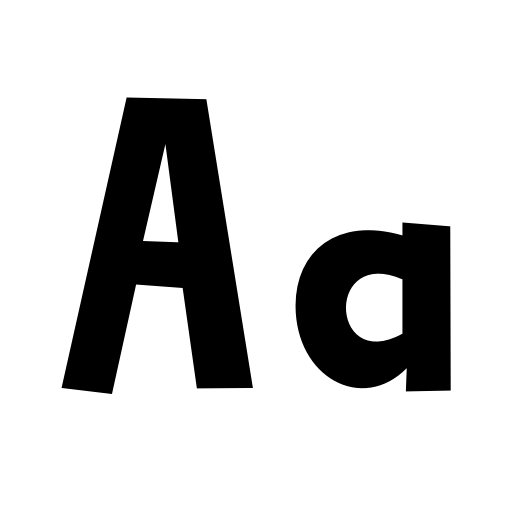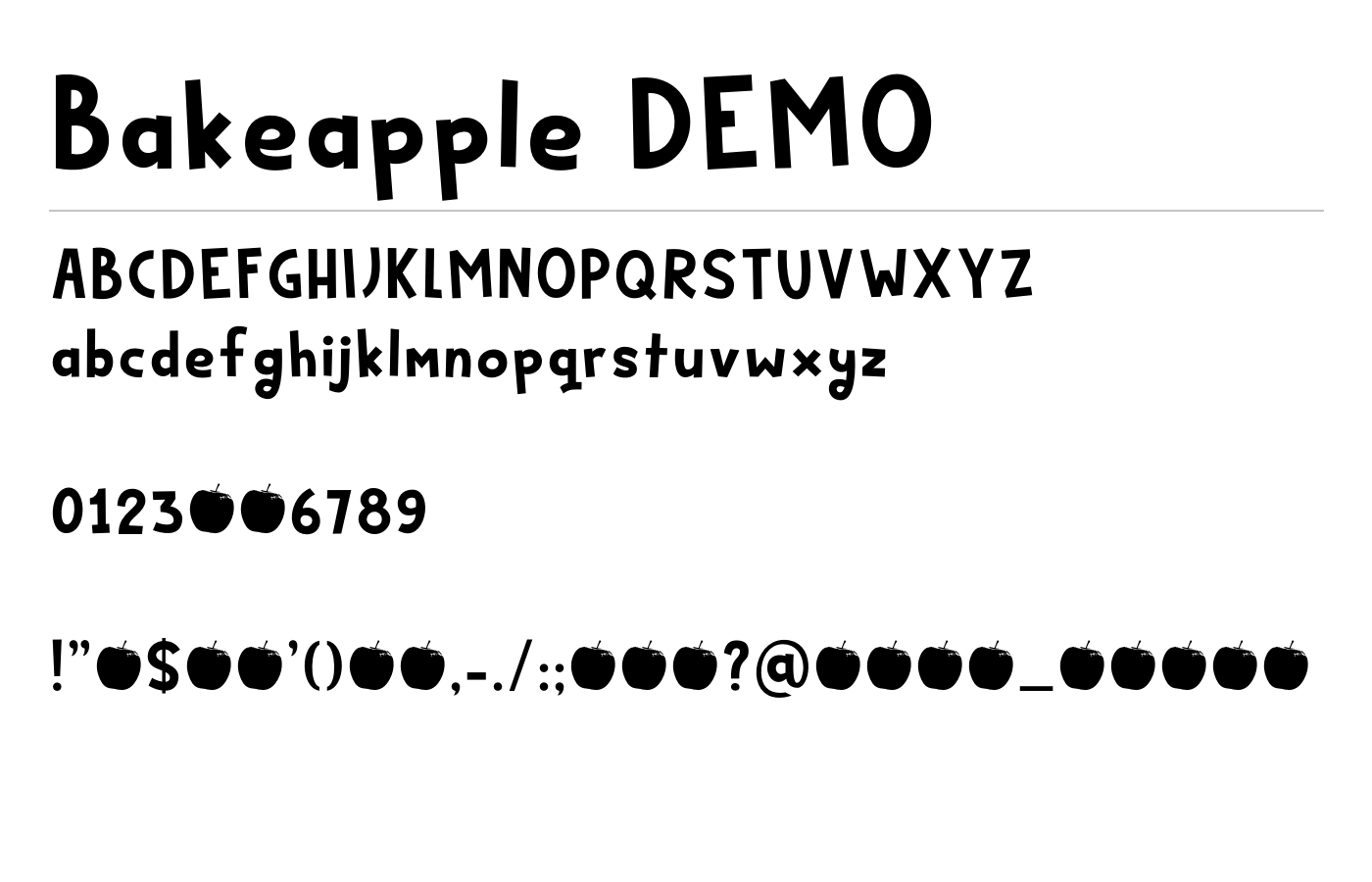
Bakeapple DEMO is a playful sans serif font with a quirky, hand-drawn feel, characterized by its uneven strokes and slightly irregular letterforms. It features a medium weight and moderate x-height, offering a friendly and informal look that works well for children's books, casual branding, and fun editorial projects. The font’s unique charm and whimsical style make it perfect for designs that aim to feel approachable and lively.
Bakeapple DEMO Font
About Bakeapple DEMO Font
| Font family | Bakeapple DEMO Font |